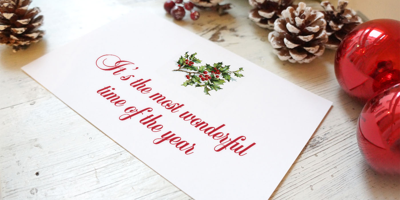
Hillary Script Webfonts Free Download: A Elegant and Flowing Handwritten Typeface
The Hillary Script Webfonts is a beautiful, elegant handwritten typeface that adds a personal and sophisticated touch to any design. With its smooth, flowing strokes and graceful curves, this font is perfect for creating high-end branding, wedding invitations, social media posts, and more. Whether you're designing for a luxury brand, personal project, or creative business, Hillary Script Webfonts offers an ideal balance of elegance and readability.
In conclusion, Hillary Script Webfonts Free Download is a perfect choice for designers looking to add a refined, handwritten style to their creative projects.